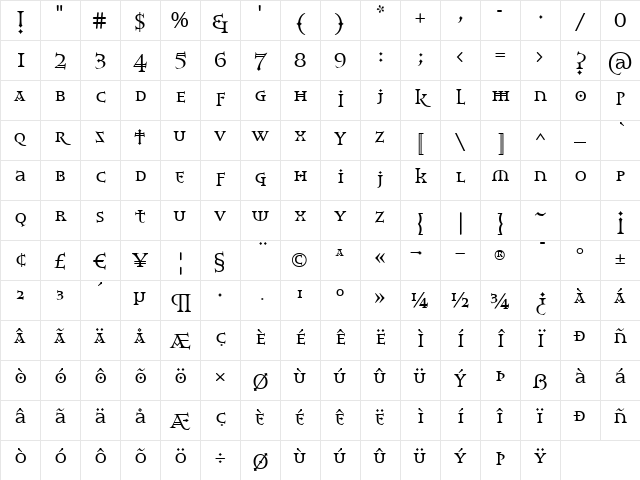
AlchemySilverHigh Regular
Design Context for AlchemySilverHigh
AlchemySilverHigh is a composed and adaptable typeface that performs quietly and consistently across a wide range of design contexts.